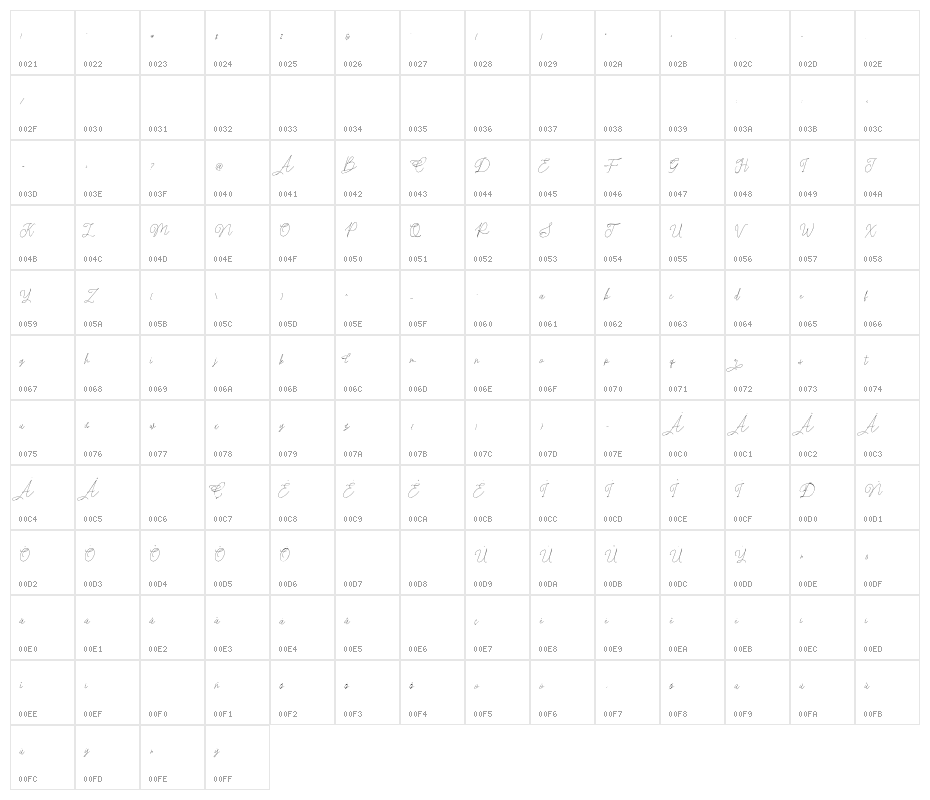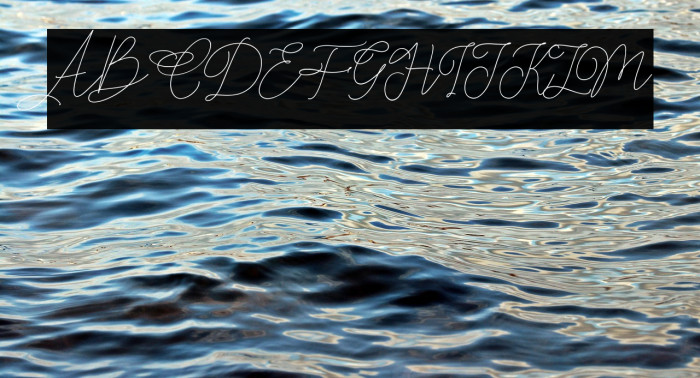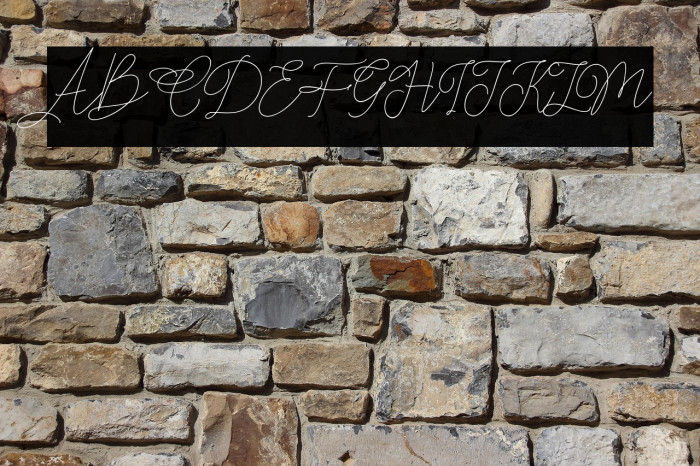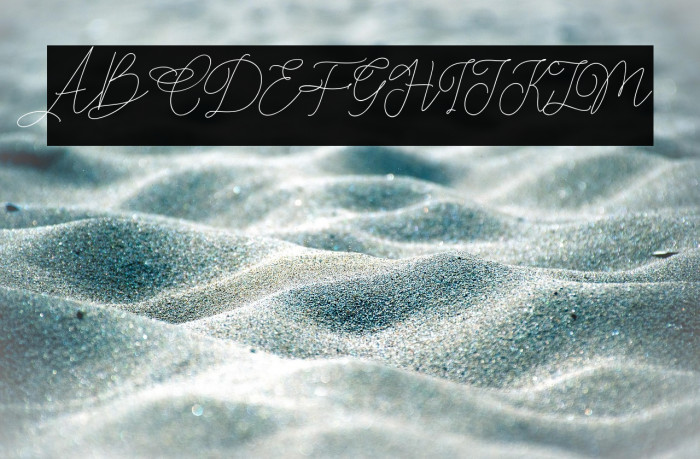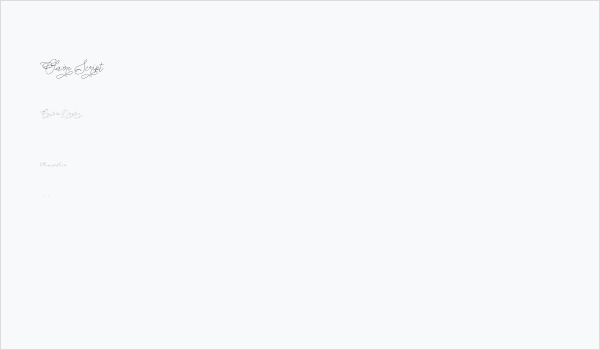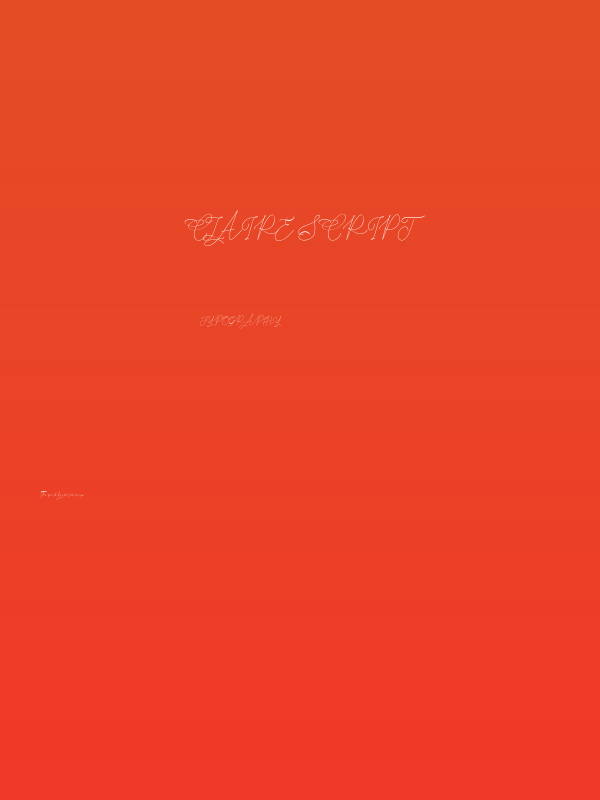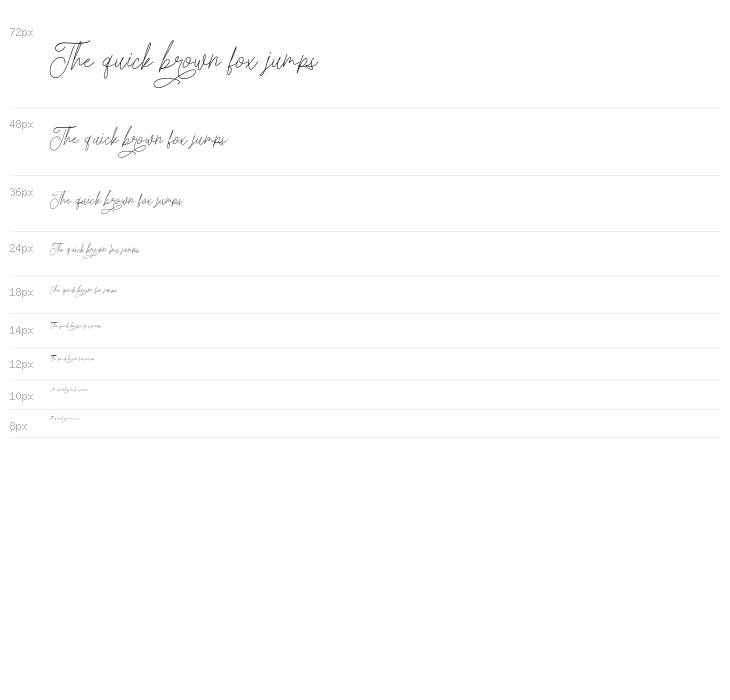
Claire Script Font
Claire Script Description
This elegant script font features flowing, interconnected letters that mimic the fluidity of cursive handwriting. The uppercase letters are ornate and slightly elongated, adding a touch of sophistication and grace. Lowercase letters maintain a consistent style with gentle curves and loops, enhancing readability while retaining an artistic flair. The numerals and special characters are designed to complement the overall aesthetic, ensuring a cohesive look across all text elements. This font's delicate strokes and intricate details make it ideal for projects that require a personal, handcrafted touch.
| Overall Style | Elegant, Handcrafted |
| Proposed Projects | Ideal for wedding invitations, greeting cards, personal branding, and elegant packaging designs. |